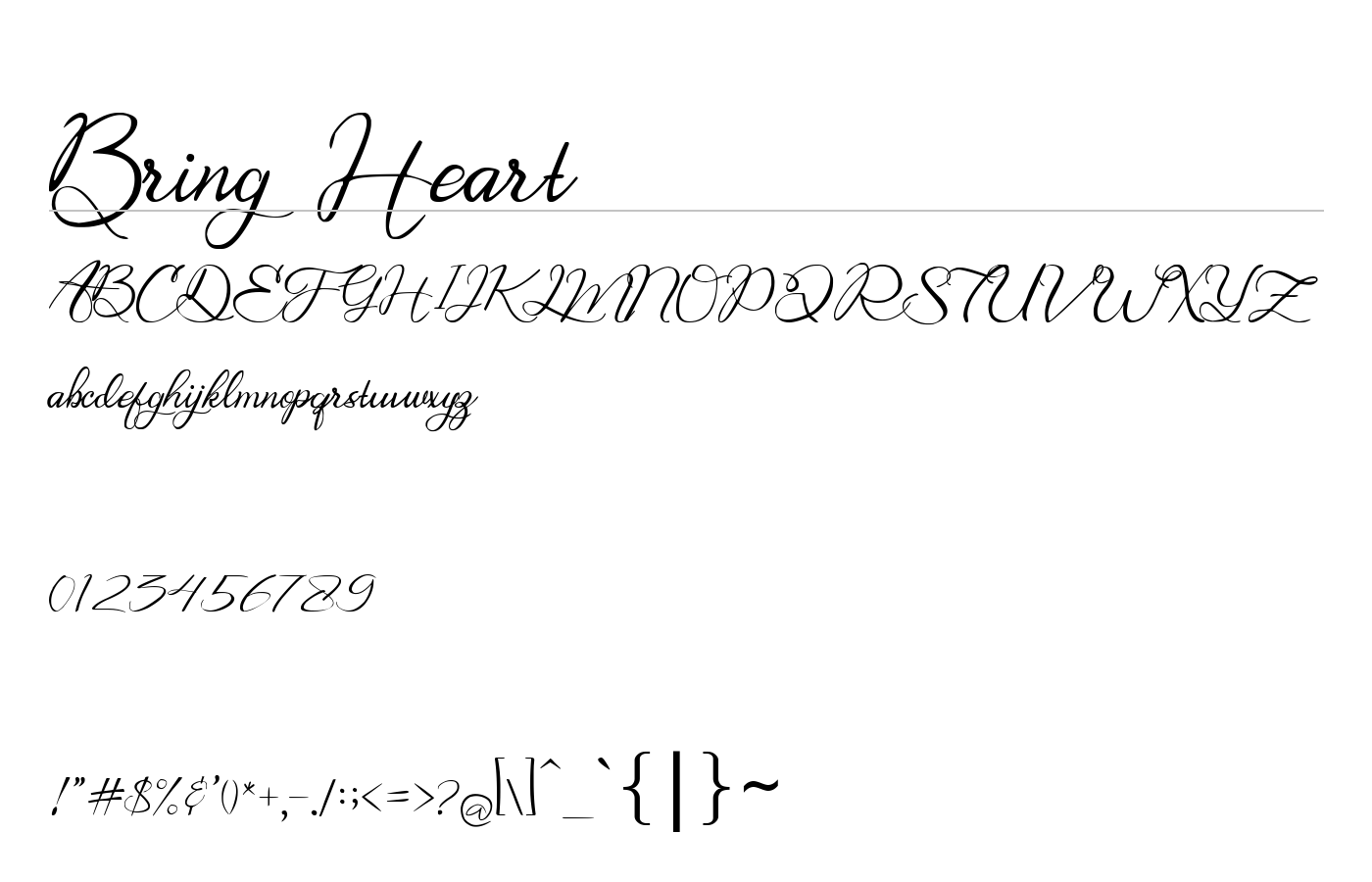
Bring Heart is an elegant, delicate script font featuring flowing, cursive letterforms with intricate swashes and a graceful, handwritten feel. Its thin weight and high contrast strokes create a refined and romantic style, making it perfect for wedding invitations, luxury branding, and sophisticated design projects that need a touch of charm and class.
Bring Heart Font
About Bring Heart Font
| Font family | Bring Heart Font |
| Designer | Rochadi Sudarma |